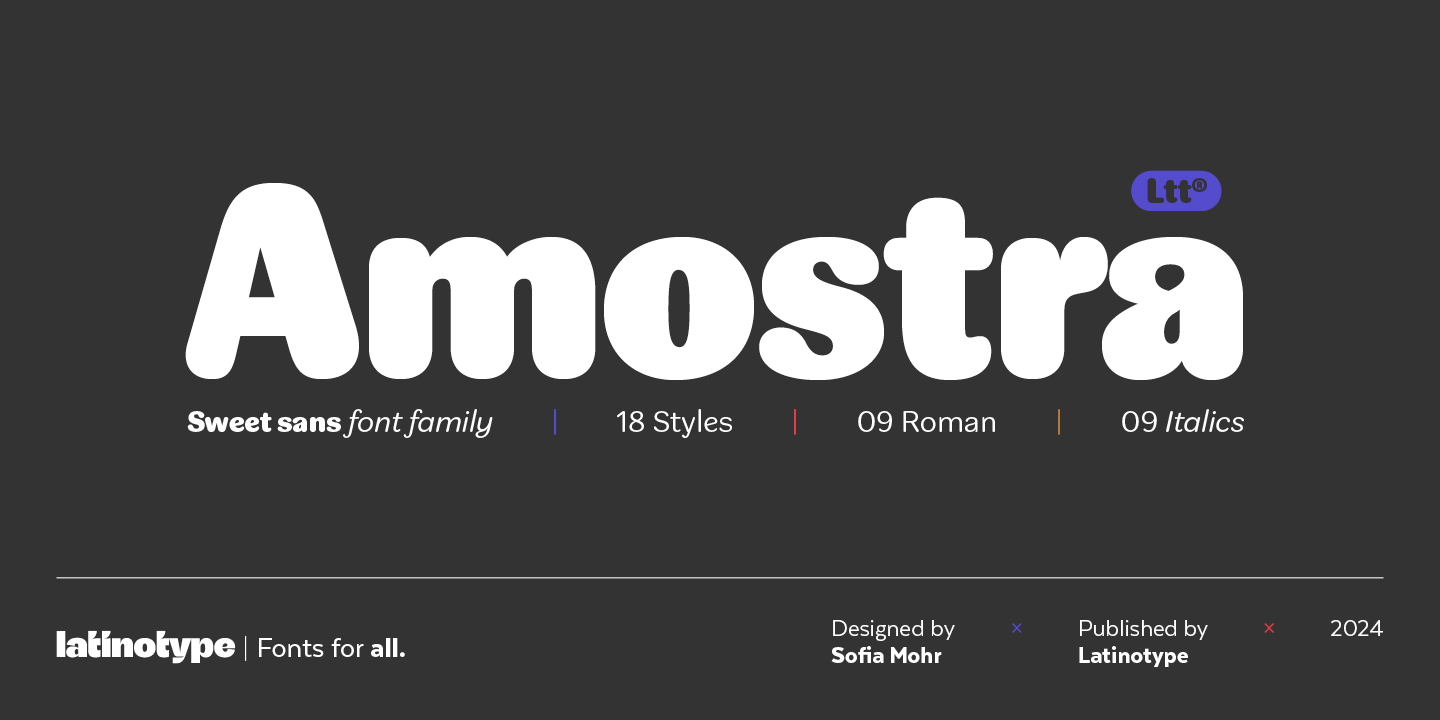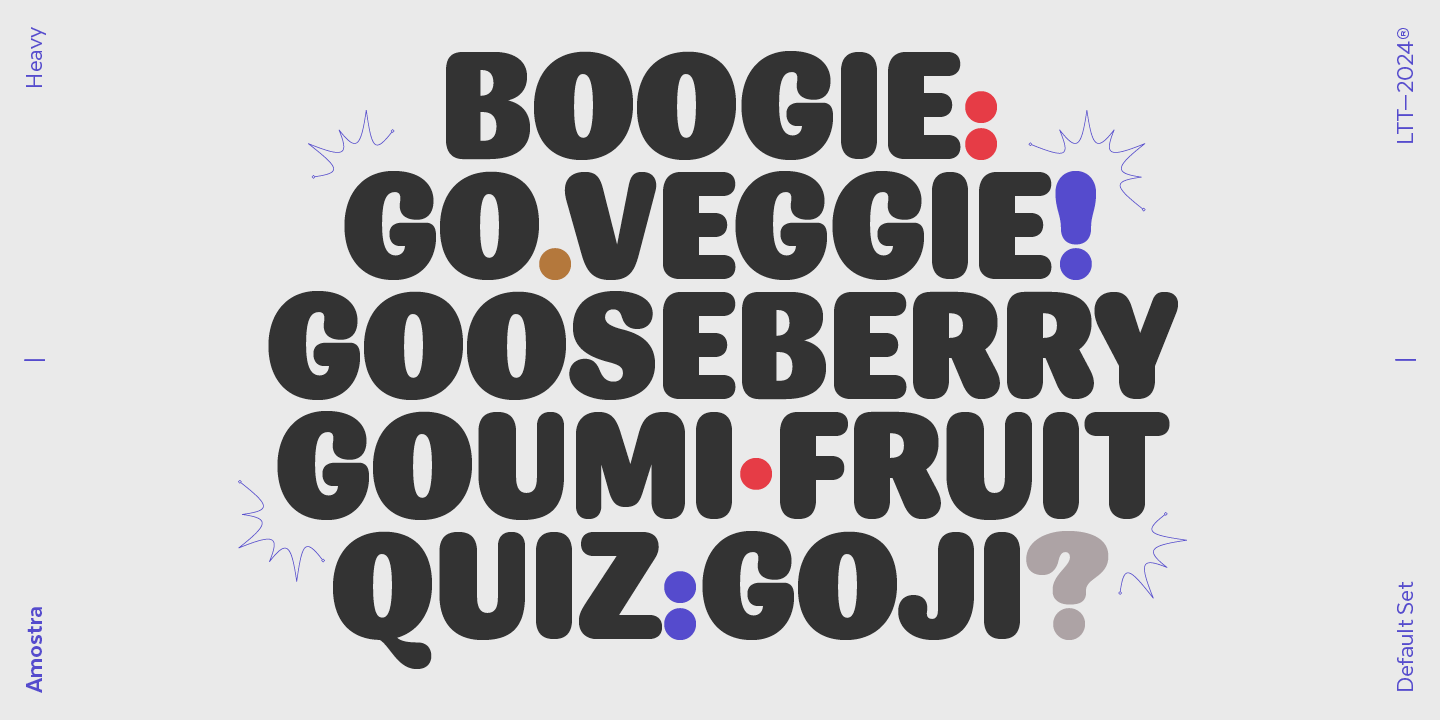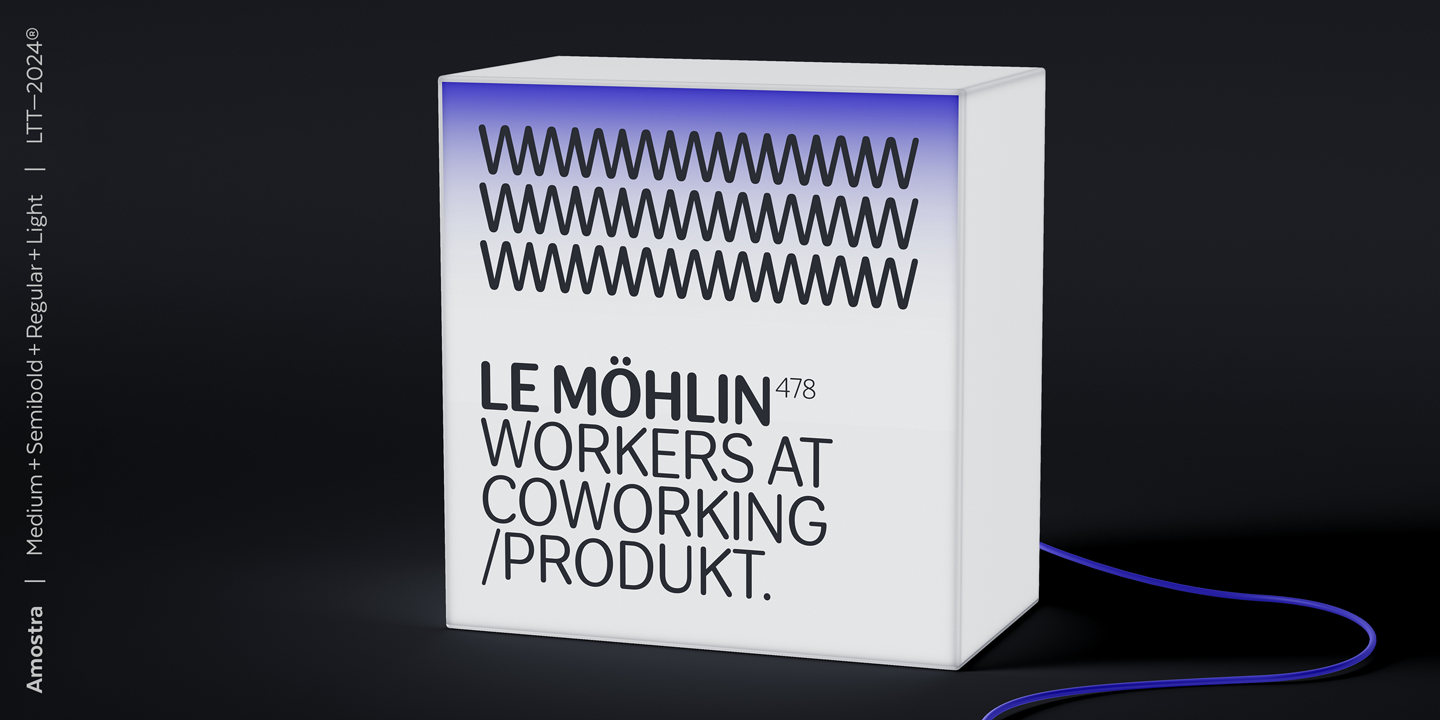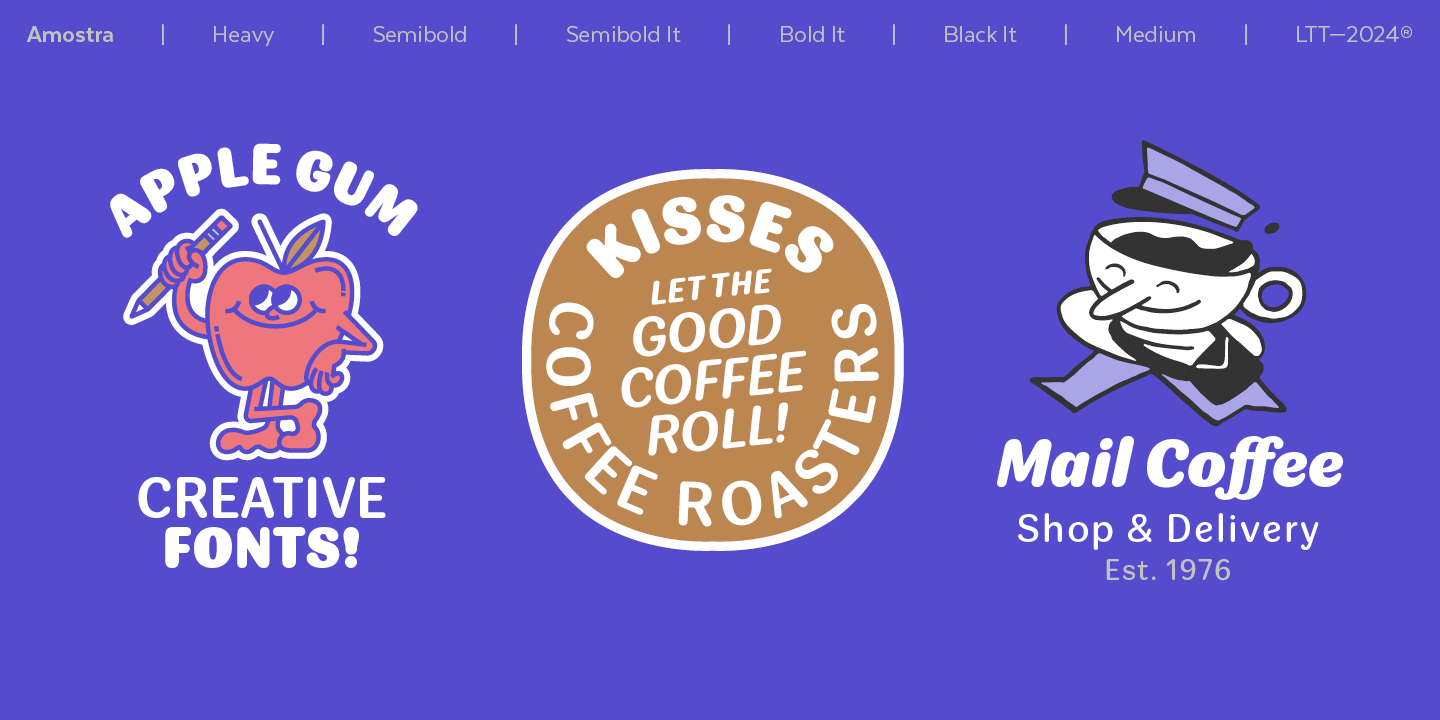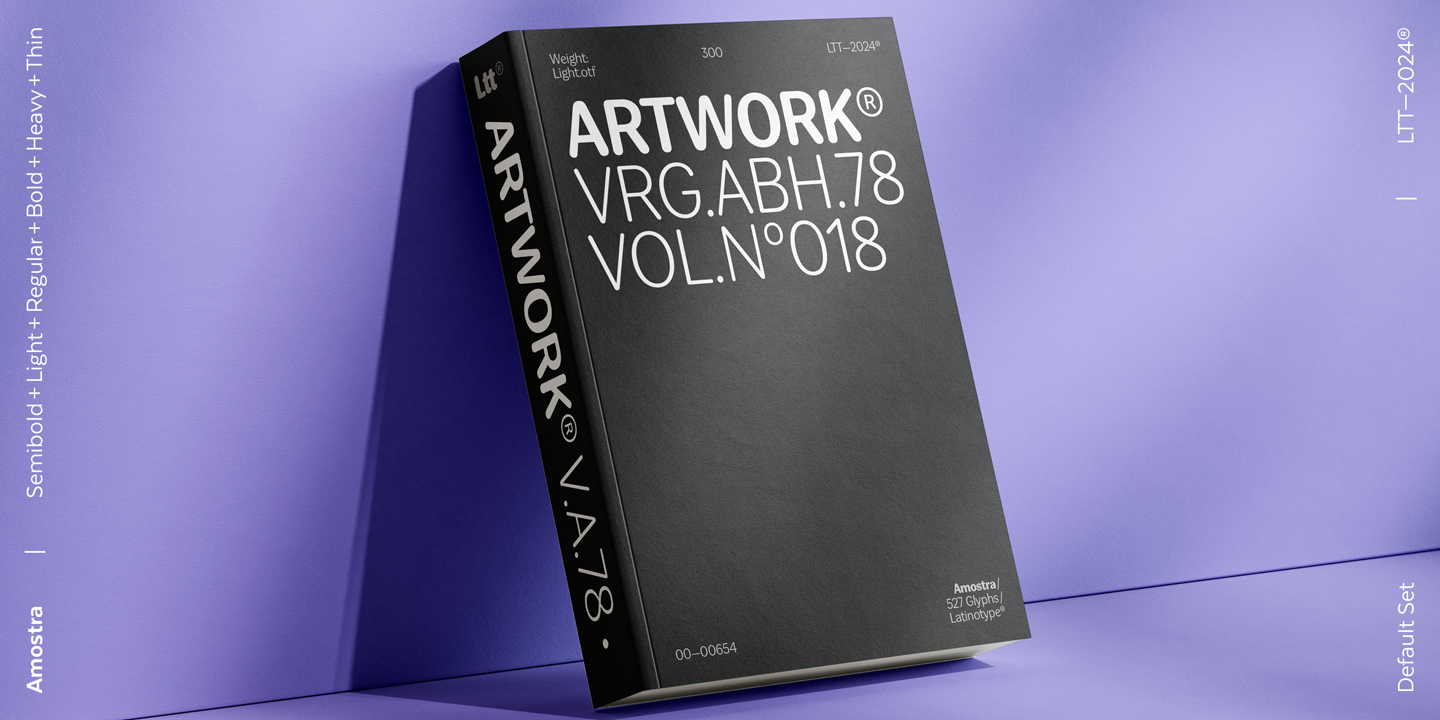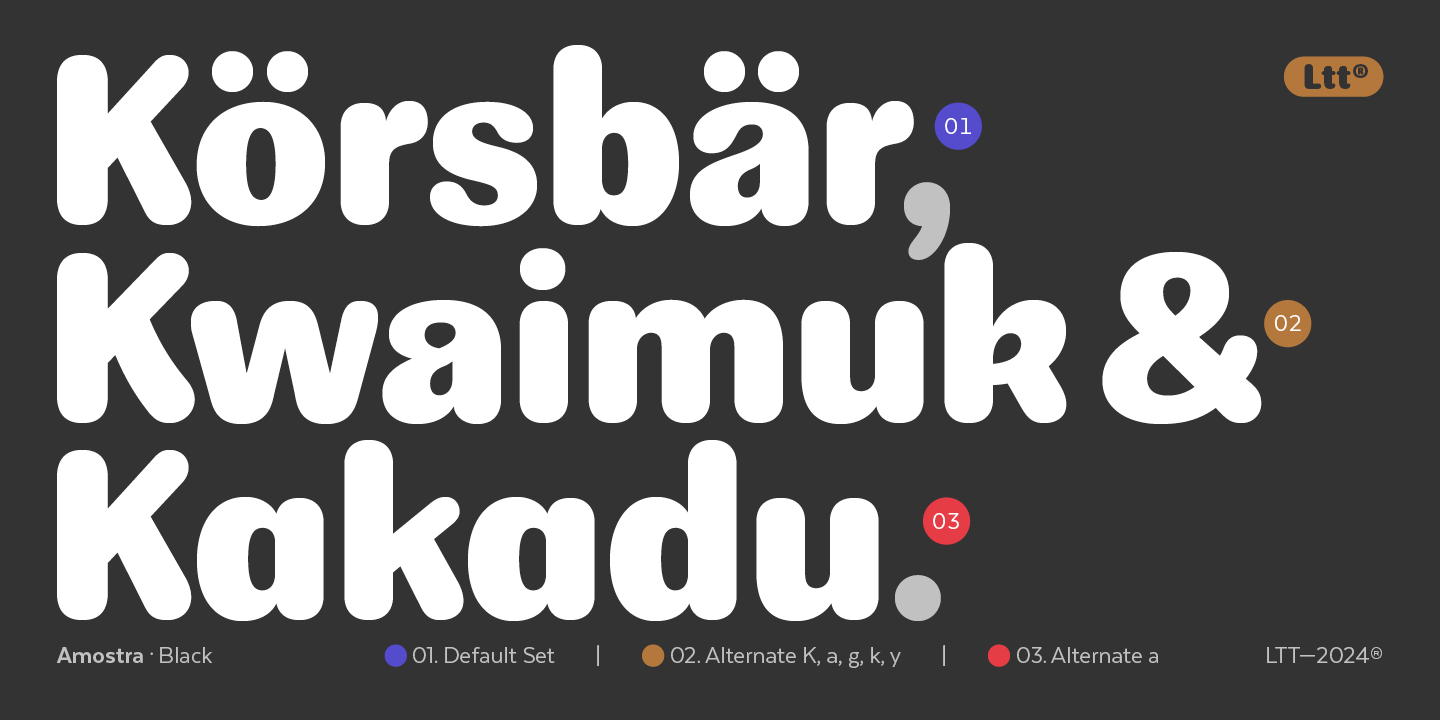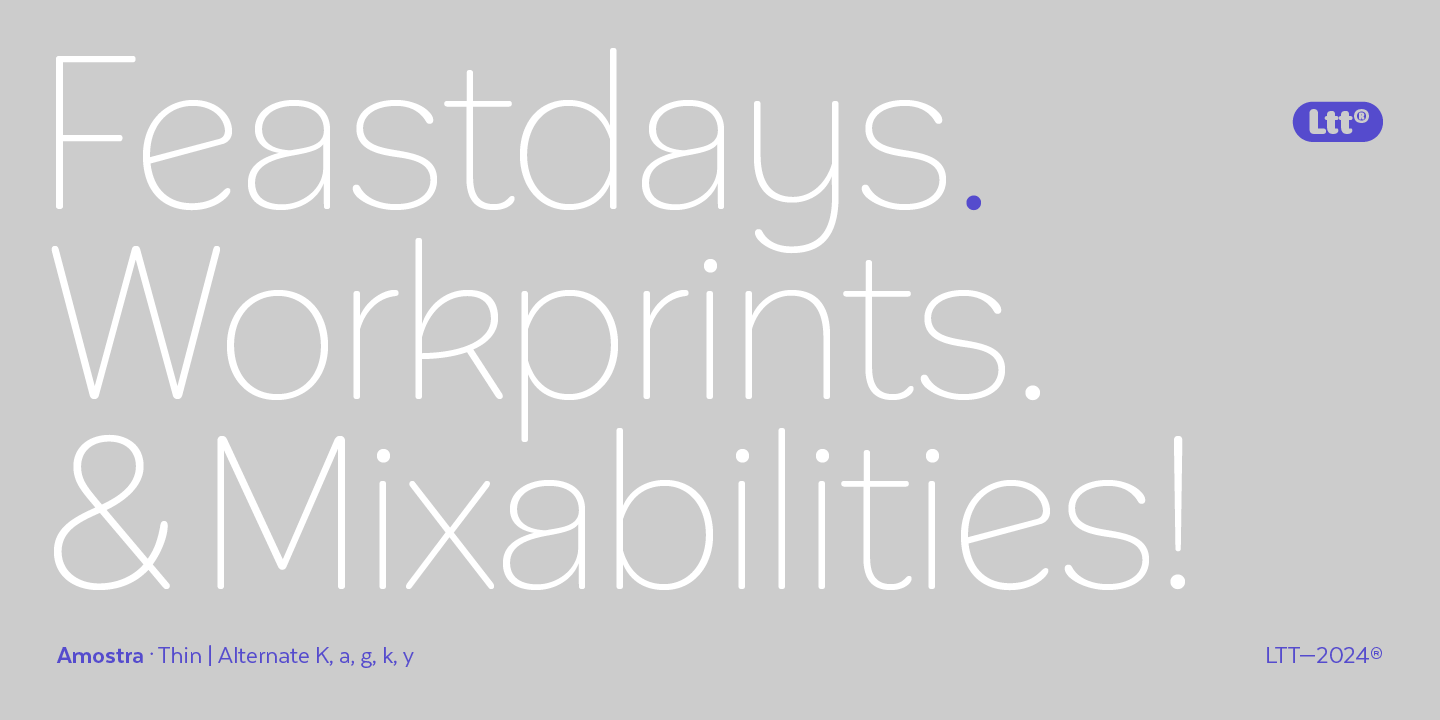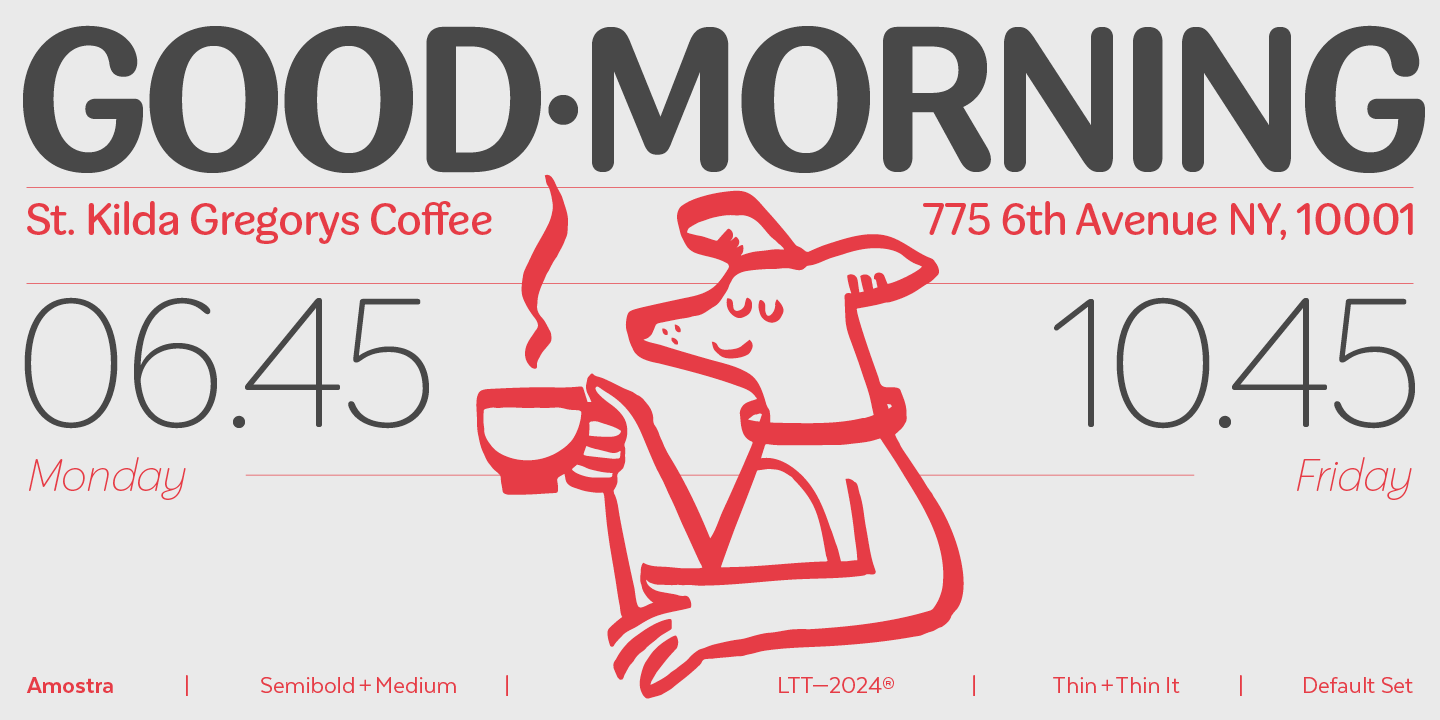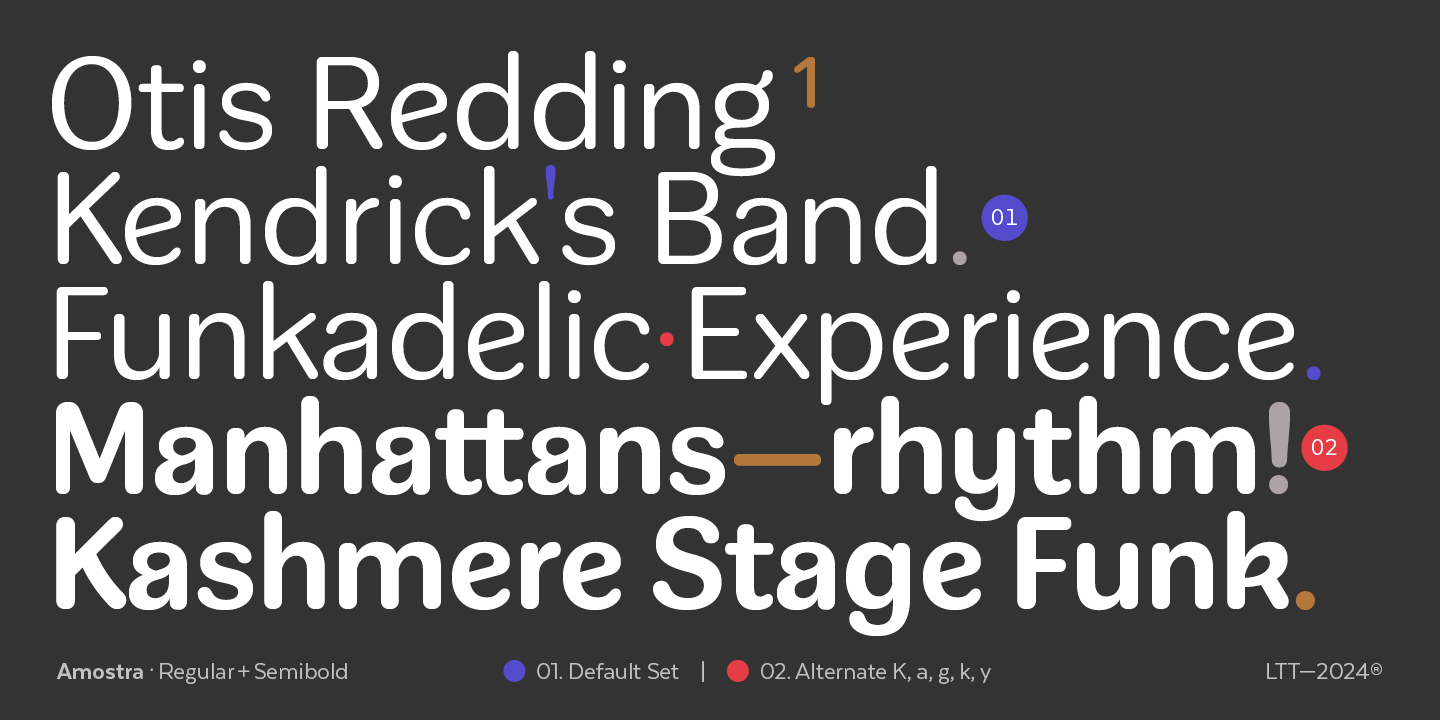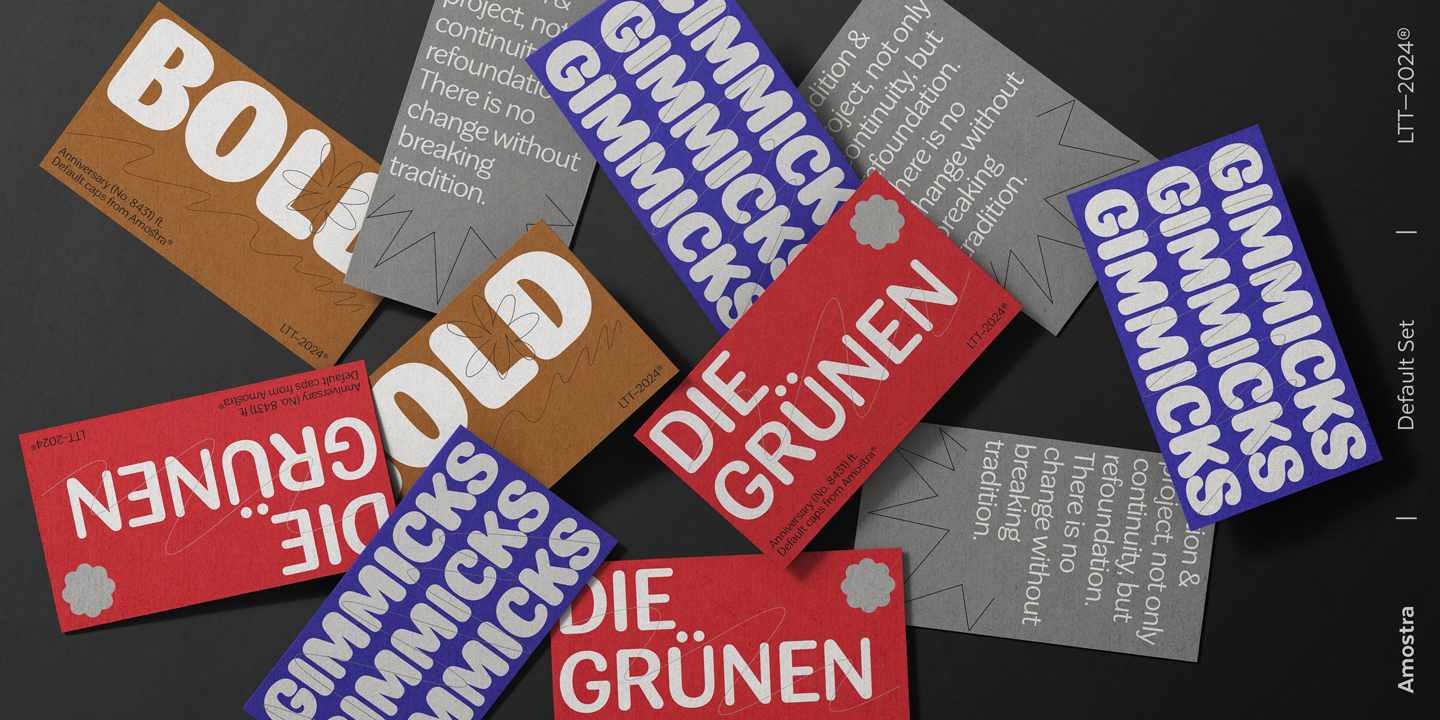
Amostra (18 fonts)
Including 9 different weight options along with their respective italic versions. Its droplet endings give Amostra a distinctive appearance, this, coupled with the wide set of weights render it ideal for projects with multiple hierarchies.
In addition, Amostra also has stylistic alternatives and ligatures that further expand its possibilities. This great versatility makes Amostra an excellent choice for various uses, such as branding, packaging, editorial design, logos and many other design projects.